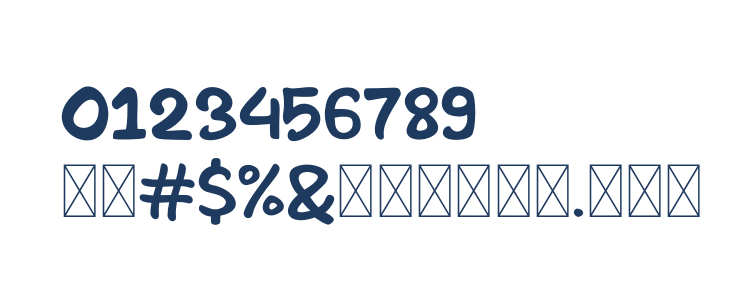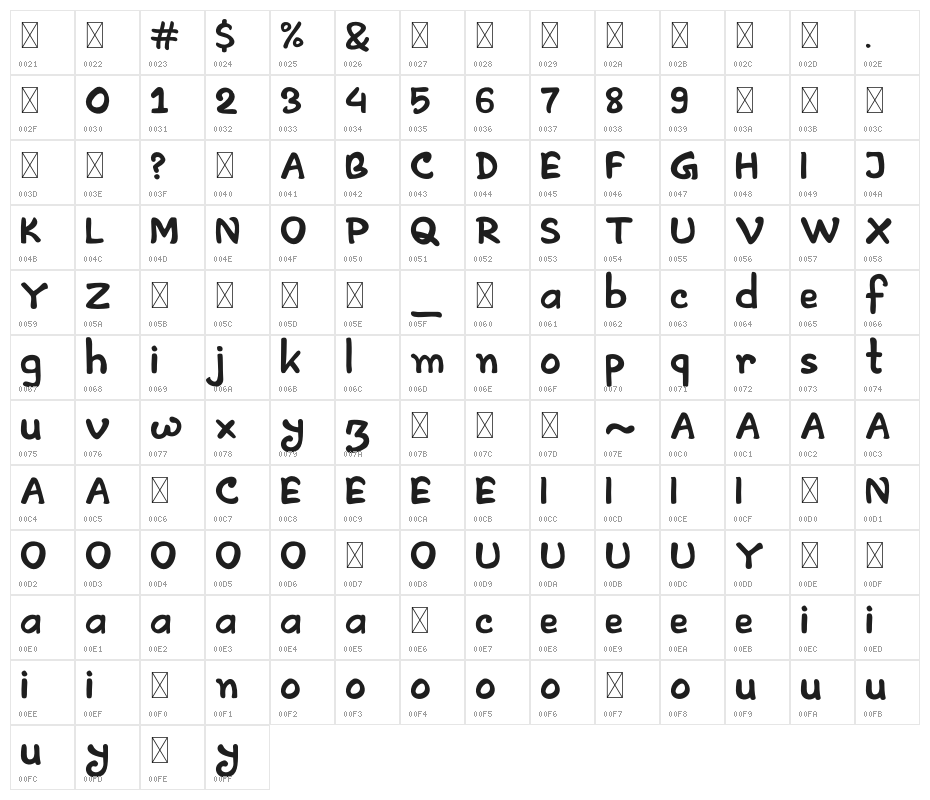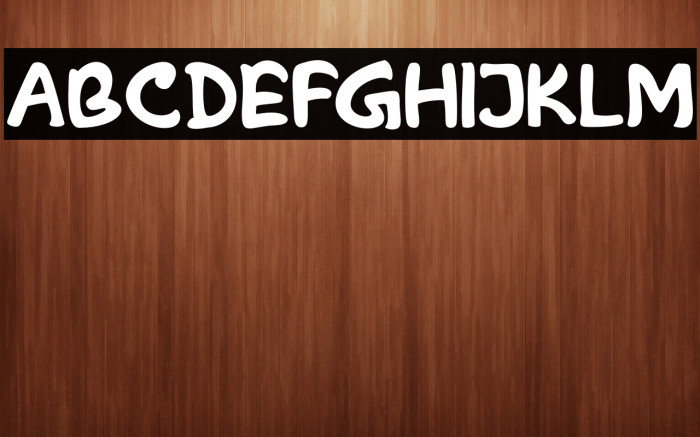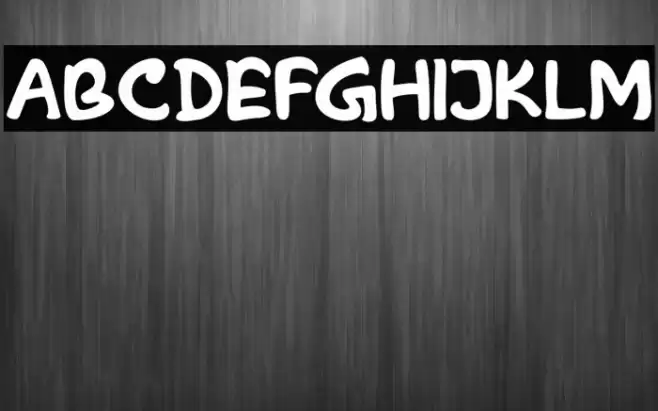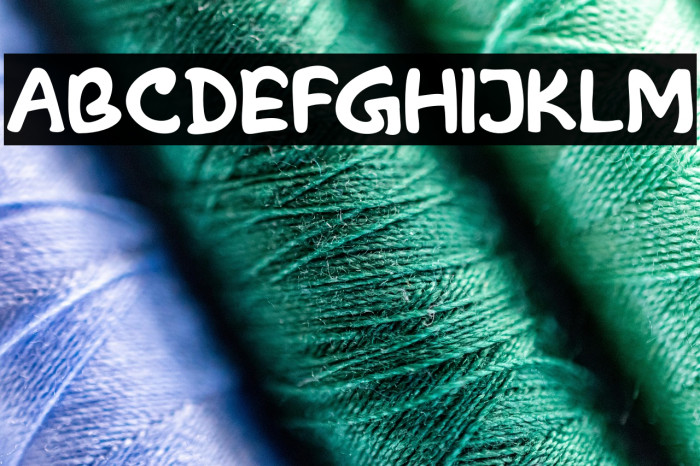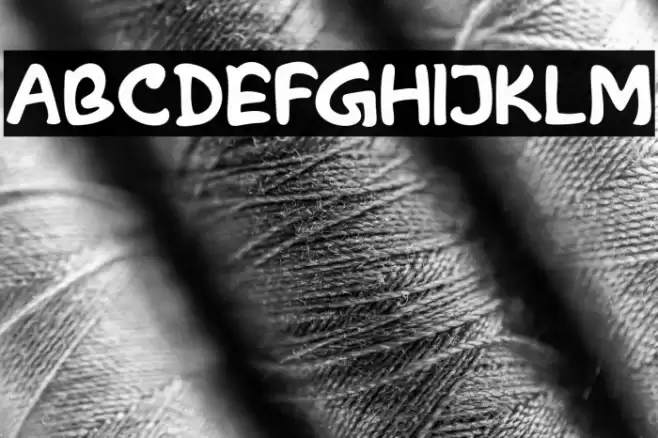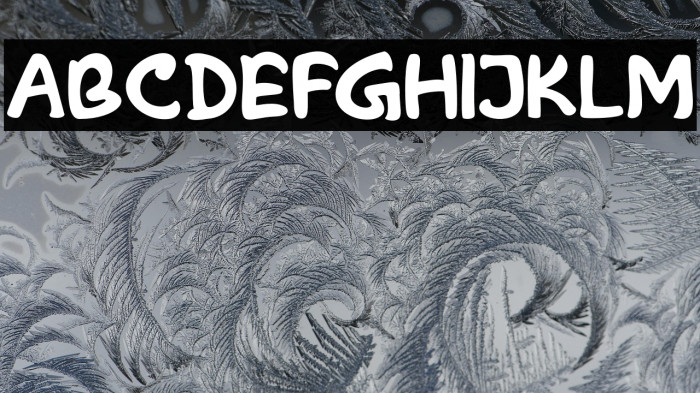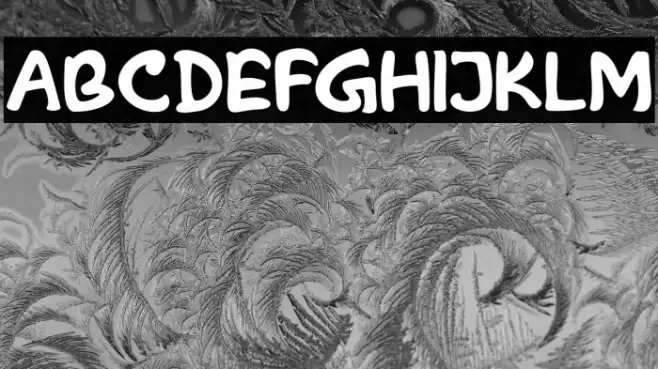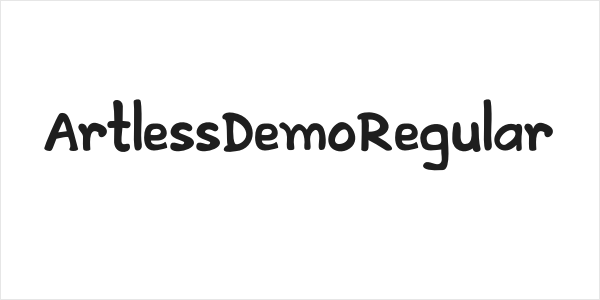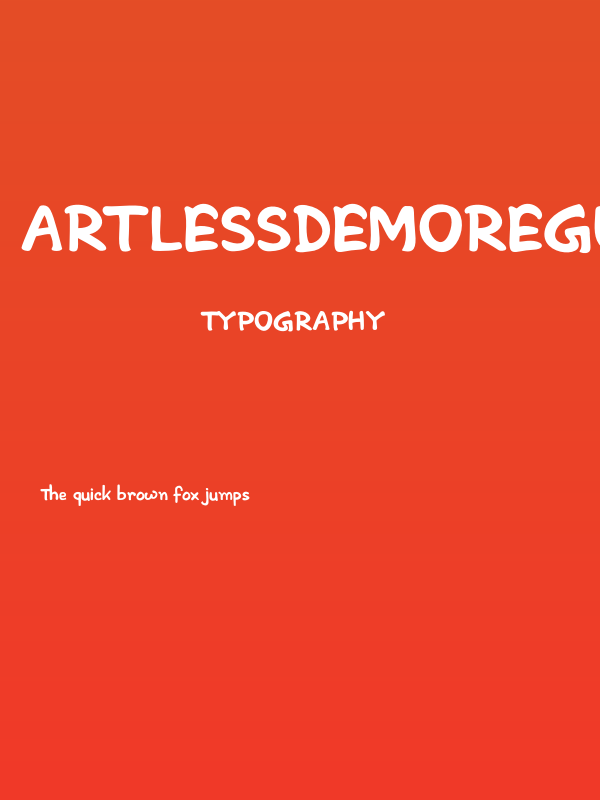
ArtlessDemoRegular Font
ArtlessDemoRegular Description
This playful and bold font features rounded, thick strokes that give it a friendly and approachable appearance. The characters are slightly irregular, adding a hand-drawn feel that enhances its casual style. The uppercase and lowercase letters maintain a consistent weight, while the numbers and special characters follow the same design principles, ensuring uniformity across all glyphs. The font's whimsical nature makes it ideal for projects that require a touch of fun and creativity.
| Overall Style | Playful, Casual |
| Proposed Projects | Ideal for children's books, playful branding, casual invitations, and creative posters. |